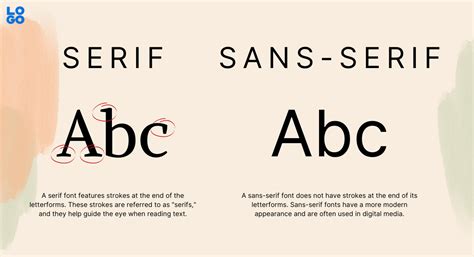
Best Letter Fonts Names For Your Next Project
Readers, have you ever struggled to find the perfect font for your next project? Whether it's a website, a logo, or a marketing campaign, choosing the right font can make a big difference in how your message is received. With so many letter fonts to choose from, it can feel overwhelming to know where to start. But don't worry, I've got you covered. I've spent years analyzing the best letter fonts and have been in the industry for a long time. This guide will help you find the perfect letter font for your next project.
Understanding the Importance of Choosing the Right Font
Choosing the right font is crucial for any project, as it plays a significant role in communication and brand identity. The typeface you select can impact how your message is perceived, whether it's formal, casual, modern, or traditional. A well-chosen font can enhance readability, create a visually appealing aesthetic, and even influence emotional responses. Knowing the purpose of your project and your target audience is essential in selecting a font that aligns with your brand and resonates with your readers.
The Fundamentals of Font Classification
Before diving into specific font names, understanding font classifications is essential. Fonts are categorized based on their design and historical origins. Some of the most common font classifications include:
Serif Fonts
Serif fonts are characterized by small decorative strokes, called serifs, at the end of each letter stroke. They generally convey a sense of tradition, formality, and readability. Popular serif fonts include Times New Roman, Garamond, and Georgia.
Sans-Serif Fonts
Sans-serif fonts lack the decorative strokes of serif fonts, creating a clean and modern appearance. They are often used for headlines, branding, and digital interfaces. Popular sans-serif fonts include Arial, Helvetica, and Open Sans.
Script Fonts
Script fonts mimic handwritten lettering, giving a personal and elegant touch. They are commonly used for invitations, logos, and branding that emphasizes a handwritten look. Popular script fonts include Brush Script, Pacifico, and Allura.
Display Fonts
Display fonts are primarily used for large-scale headlines and eye-catching visuals. They are often designed with bold features and unique characteristics to make a statement. Popular display fonts include Impact, Bebas Neue, and Chalkboard.
Monospace Fonts
Monospace fonts, also known as fixed-width fonts, give every character the same width. They are commonly used in programming, coding, and terminal applications. Popular monospace fonts include Courier New, Consolas, and Monaco.
Best Letter Fonts For Different Projects
Now that we've covered the basics of font classification, let's explore some of the best letter fonts for different project types.
Best Letter Fonts for Websites
Choosing the right font for your website is crucial for creating a user-friendly experience and conveying your brand identity. Here are some popular website font options:
Serif Fonts for Websites
Serif fonts, with their traditional and elegant look, can work well for websites, particularly for content-heavy sites or those aiming for a classic feel. Examples include:
- **Times New Roman:** A classic serif font that provides excellent readability and a professional feel.
- **Garamond:** A refined and elegant serif font that adds a touch of sophistication.
- **Georgia:** A highly readable serif font that excels at long-form content.
Sans-Serif Fonts for Websites
Sans-serif fonts offer a clean and modern look, making them excellent choices for websites that aim for a contemporary feel. Popular options include:
- **Arial:** A widely used sans-serif font that provides excellent readability and versatility.
- **Helvetica:** A classic sans-serif font known for its clarity and simplicity.
- **Open Sans:** A modern and readable sans-serif font with a wide range of weights.
Script Fonts for Websites
Script fonts can add a touch of personality and elegance to websites, but they are generally best used sparingly. Some popular script fonts for websites include:
- **Brush Script:** A classic script font with a flowing and natural look.
- **Pacifico:** A playful and casual script font that adds a personal touch.
- **Allura:** An elegant and sophisticated script font that can elevate website design.
Best Letter Fonts for Logos
The right font for your logo can make all the difference in branding and visual identity. Here are some popular logo font options, keeping in mind that logo font selection often involves a blend of aesthetics and readability.
Serif Fonts for Logos
Serif fonts can provide a traditional and timeless feel for logos. Here are some notable examples:
- **Playfair Display:** A classic serif font with a touch of elegance.
- **Didot:** A refined and elegant serif font with a strong presence.
Choosing the perfect font for your next project is a vital step in creating a successful design. By understanding font classifications, exploring various font options, and considering factors like readability, visual appeal, and accessibility, you can make informed decisions and ensure that your font choices elevate your projects and effectively communicate your message. So, explore these resources, experiment with different fonts, and have fun with the process! And, if you're looking for more inspiration or want to delve deeper into the fascinating world of fonts, be sure to check out other articles on our site that explore various aspects of typography and design.